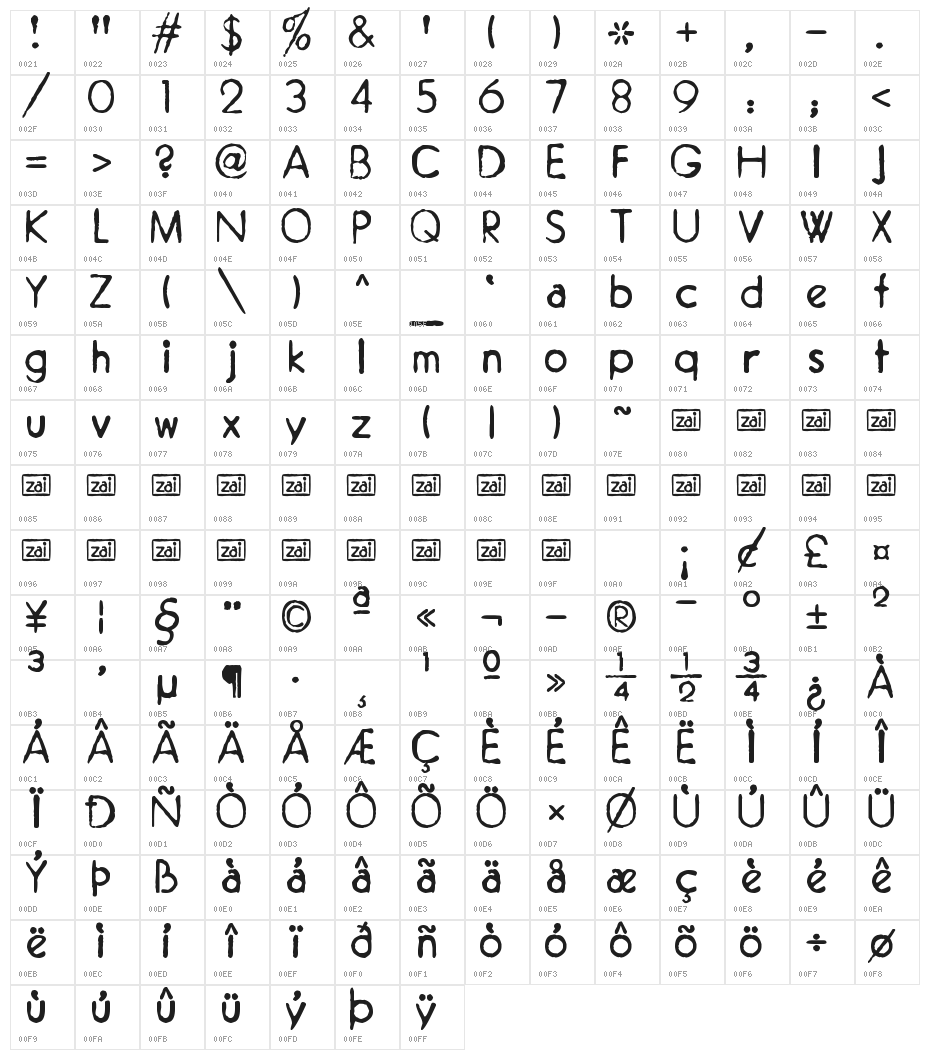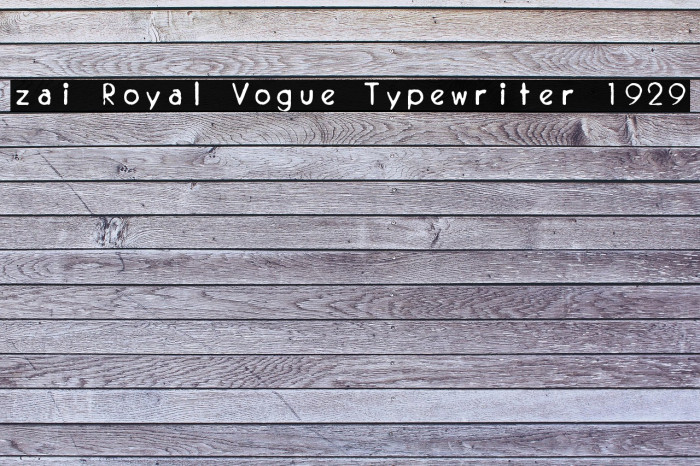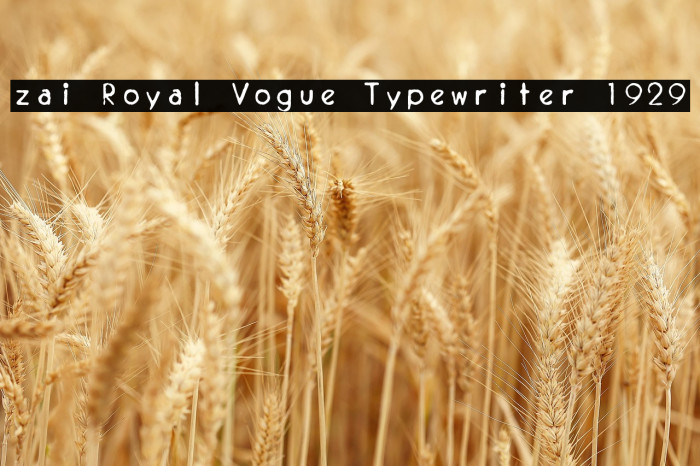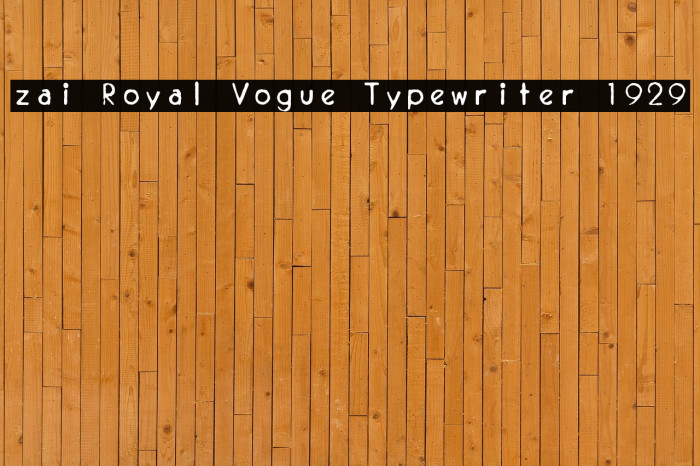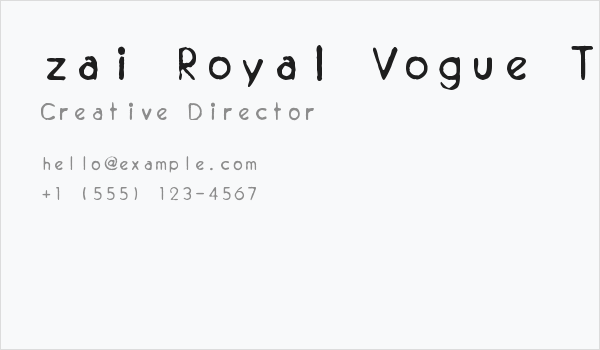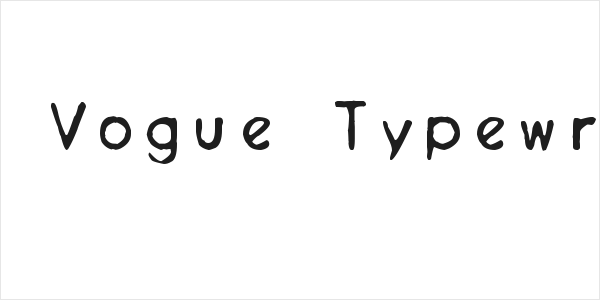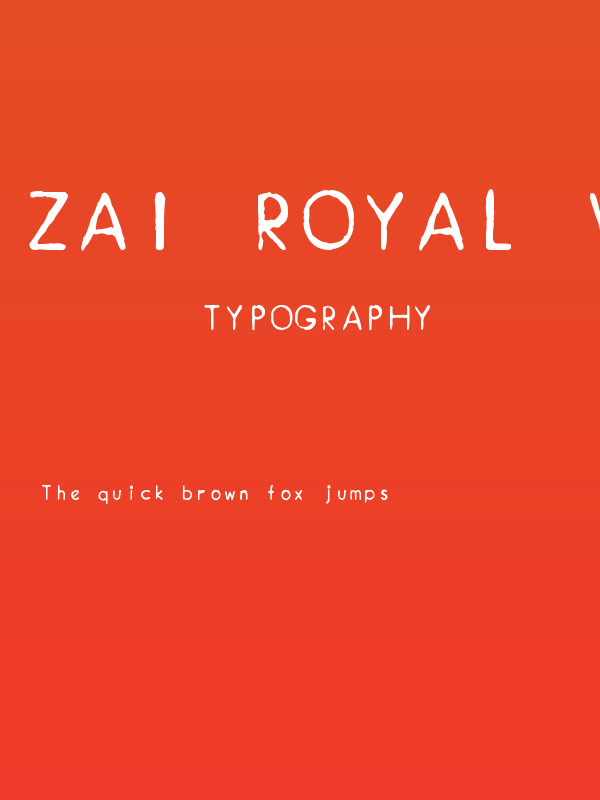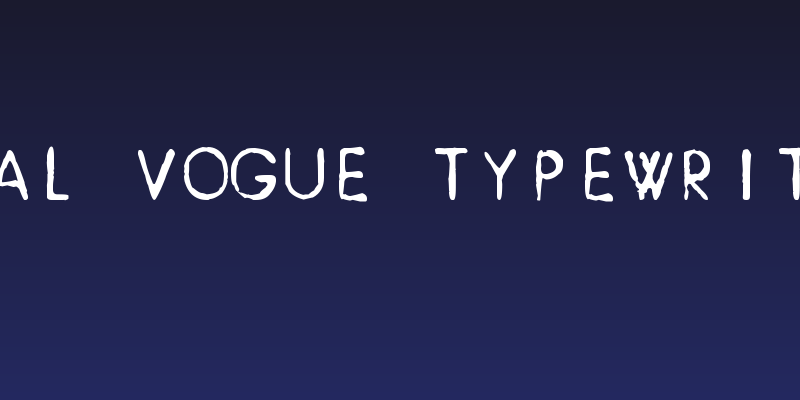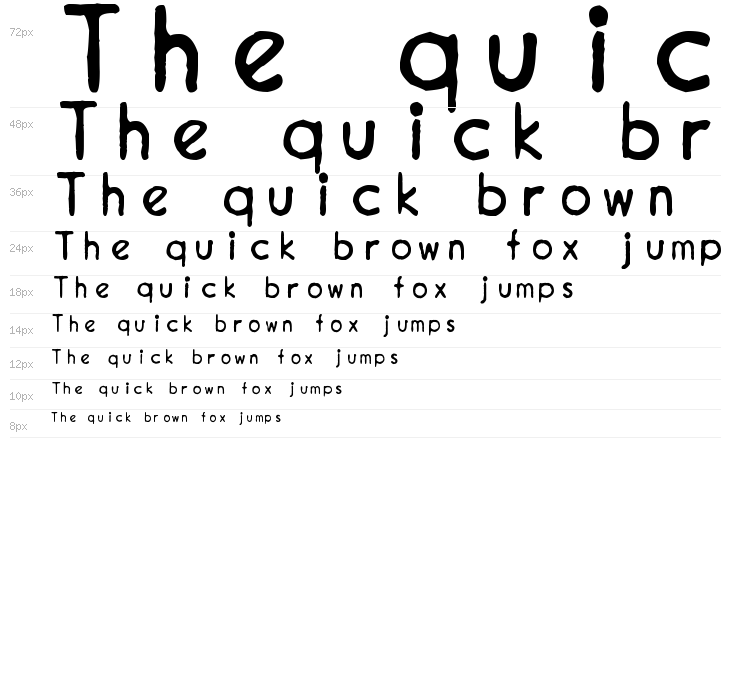
zai Royal Vogue Typewriter 1929 Font
zai Royal Vogue Typewriter 1929 Description
This font exudes a vintage typewriter aesthetic, characterized by its uneven, slightly distressed letterforms that mimic the look of ink on paper. The uppercase and lowercase letters maintain a consistent style, with rounded edges and a hand-crafted appearance. The numerals and special characters follow the same design principles, adding to the cohesive look. The font's imperfections give it a charming, nostalgic feel, reminiscent of early 20th-century typewriters. Its unique style makes it stand out, offering a blend of retro and artisanal qualities.
| Proposed Projects | Ideal for projects that require a retro or nostalgic feel, such as vintage-themed posters, book covers, or branding for artisanal products. |